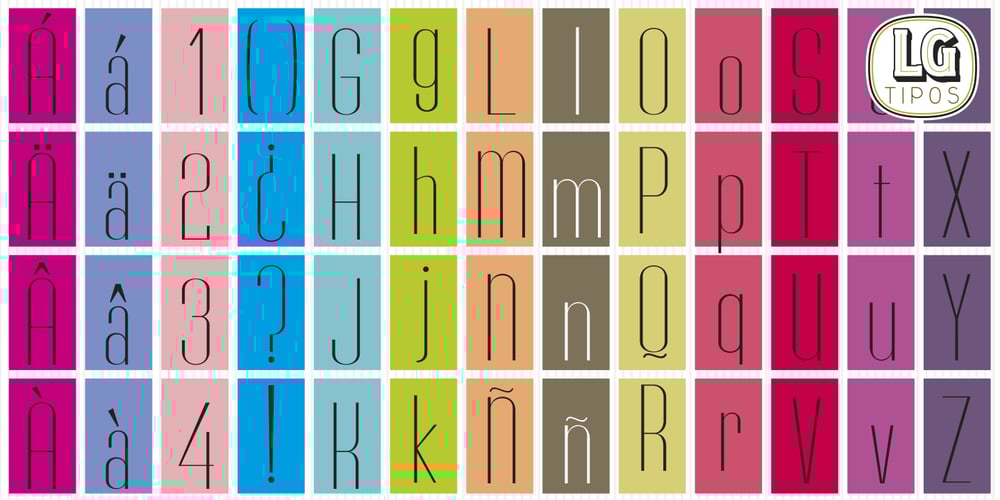
Primavera LGf Font Family was designed by Manuel Lage and published by LGF Fonts. Primavera LGf contains 2 styles and family package options. PRIMAVERA is a type of RICHARD GANS foundry, basic latin and spanish caracters. PRIMAVERA BOLD is a new weight of Manuel Lage. Ligadures are new. PRIMAVERA familly is a fine line typography, simple and elegant beauty, good readability, clean and smoothing stroke.